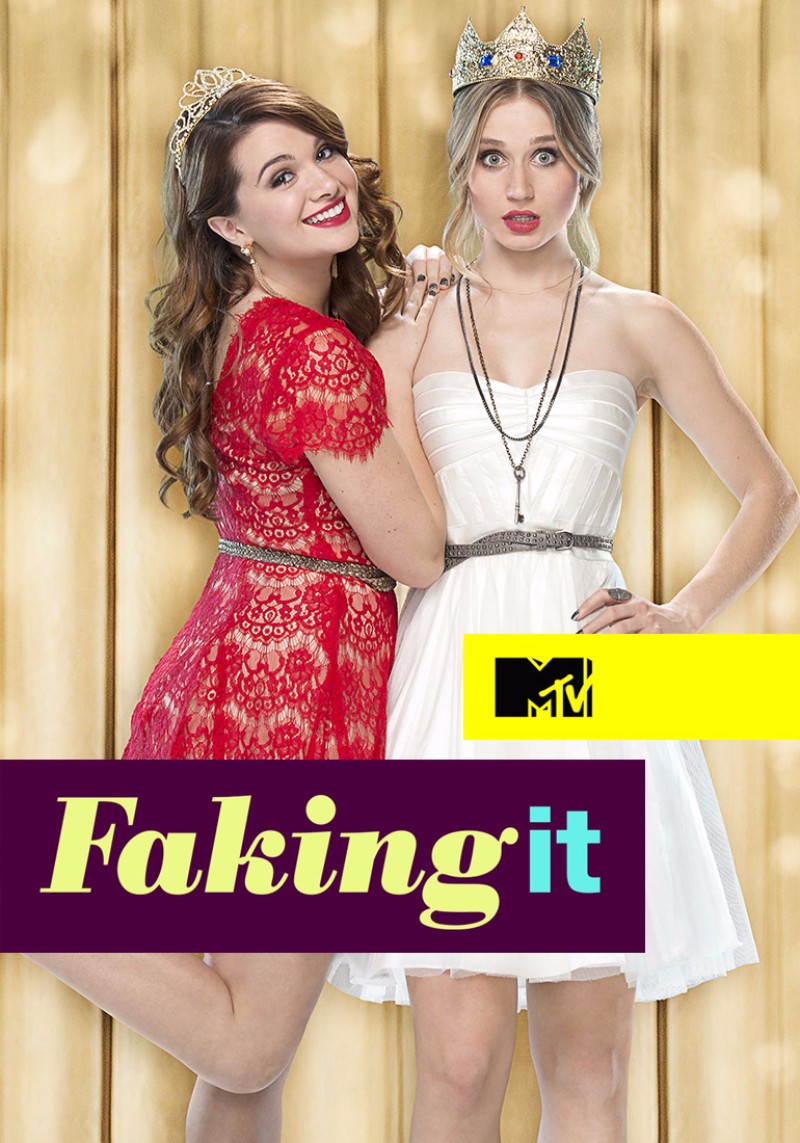
Faking It Font
ComedyFaking It is an American single-camera romantic comedy series that premiered in 2014 and follows two best friends who pretend to be a couple in order to gain popularity at their high school.
On the poster for the TV title, "Faking" is presented in Berthold Bodoni Bold Italic, a serif typeface designed by Giambattista Bodoni in the late 1700s. The "it" is set in Helvetica Neue Heavy font. Helvetica Neue has an extensive font family and comes in 39 different styles.